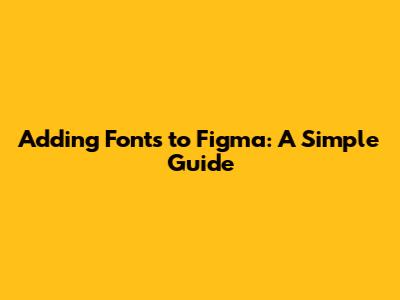
- Windows: Right-click the font file and select “Install” or double-click the font file and click the “Install” button at the top.
- macOS: Double-click the font file, and it will open in Font Book. Click “Install Font” at the bottom.
- Font Not Showing Up? Double-check that the font is properly installed on your system. Restart your computer if necessary. Also, ensure that you’ve closed and reopened the Figma desktop app.
- Font Appears Garbled? This could be due to a corrupted font file. Try downloading the font again from a different source.
- Font Helper Not Connecting? Check your firewall settings to ensure that the Figma Font Helper is allowed to communicate with Figma. Sometimes, firewalls can block the connection.
- Fonts Still Not Appearing? Try restarting both your browser and the Figma Font Helper. If the problem persists, reinstall the Font Helper to ensure that it’s properly configured.
- No Installation Required: Google Fonts are instantly available in Figma, saving you the hassle of downloading and installing font files.
- Web-Safe: Google Fonts are designed to work seamlessly on the web, ensuring that your designs look consistent across different browsers and devices.
- Free and Open Source: All Google Fonts are free to use, even for commercial projects.
Hey guys! Ever wondered how to make your Figma designs pop with that perfect font? Adding fonts in Figma is super easy, and I’m here to walk you through it. Whether you're a seasoned designer or just starting, understanding how to incorporate new fonts can significantly level up your design game. So, let’s dive in and get those creative juices flowing!
Why Add Custom Fonts to Figma?
Before we jump into the how, let's quickly touch on the why. Figma comes with a decent selection of fonts, but sometimes you need that special something to truly capture the essence of your project. Maybe you've found a unique font that perfectly aligns with your brand, or perhaps you need a specific typeface for a client project. Whatever the reason, custom fonts can add a unique touch that sets your designs apart. Using custom fonts allows for greater flexibility and creativity, enabling designers to create truly unique and branded experiences. Furthermore, having access to a wider variety of fonts ensures that you can always find the perfect typeface to match the tone and style of your design. This can be particularly important when working on projects that require specific visual aesthetics or when adhering to strict branding guidelines.
Ensuring Brand Consistency
One of the most significant advantages of adding custom fonts is the ability to maintain brand consistency across all your design projects. When you use the same fonts consistently, you create a cohesive and recognizable brand identity. This is crucial for building trust and recognition with your audience. Imagine a scenario where a company uses a different font in each of its marketing materials. This can lead to confusion and dilute the brand's message. By sticking to a consistent set of fonts, you reinforce the brand's identity and make it easier for people to recognize and remember your brand.
Enhancing Visual Appeal
Custom fonts can also significantly enhance the visual appeal of your designs. The right font can transform a mundane design into something that is visually stunning and engaging. Different fonts evoke different emotions and can convey different messages. For example, a sleek and modern sans-serif font might be perfect for a tech company, while a classic serif font might be more appropriate for a traditional law firm. By carefully selecting and incorporating custom fonts, you can create designs that are not only visually appealing but also effectively communicate your intended message.
Standing Out from the Crowd
In a world where everyone has access to the same default fonts, using custom fonts can help you stand out from the crowd. When you use unique and interesting fonts, you create designs that are more memorable and attention-grabbing. This can be particularly important in competitive industries where it is essential to differentiate yourself from your competitors. Custom fonts can give your designs a distinctive edge, helping you to make a lasting impression on your audience. By investing in custom fonts, you are investing in the uniqueness and memorability of your brand.
Method 1: Using the Figma Desktop App
The easiest and most reliable way to add fonts to Figma is through the desktop app. Here’s how you do it:
Step 1: Install the Fonts on Your Computer
First things first, you need to have the font files on your computer. Usually, these come in .otf (OpenType Font) or .ttf (TrueType Font) formats. Download the font files from a reputable source. Google Fonts, Adobe Fonts, and various independent font foundries are great places to find high-quality fonts. Make sure the source is legit to avoid any sketchy stuff!
Once you’ve downloaded the font, install it on your operating system:
Step 2: Restart Figma Desktop App
This is a crucial step. For Figma to recognize the newly installed fonts, you need to restart the Figma desktop application. Close the app completely and then reopen it. This ensures that Figma refreshes its font list and picks up the new additions.
Step 3: Accessing the Fonts in Figma
Now, open your Figma project. Select a text layer, and in the text panel on the right, click on the font dropdown menu. Your newly installed fonts should now be listed there. If you don’t see them immediately, try typing the font name in the search bar within the font dropdown. Sometimes, it takes a moment for the fonts to fully load.